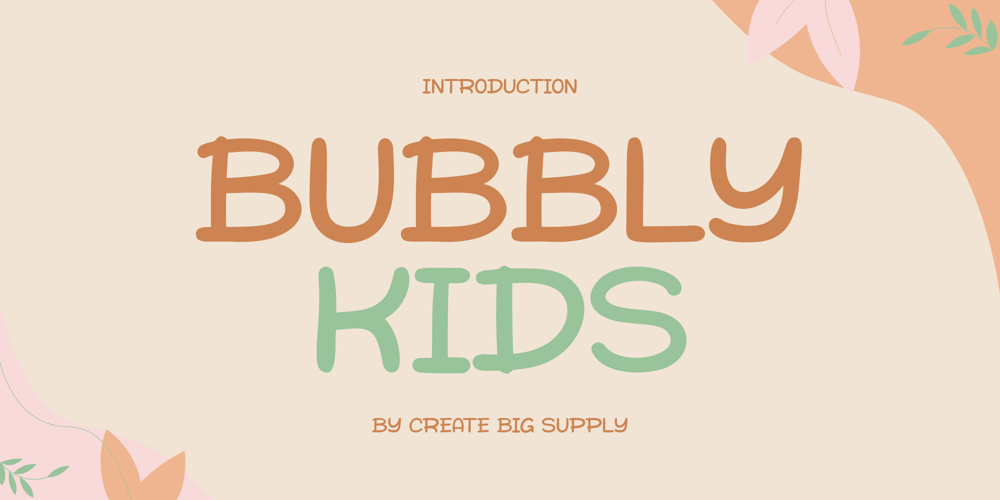
Bubbly Kids
Bubbly Kids font
Bubbly Kids Font Family was designed by Irpan Maulana and published by Create Big Supply. Bubbly Kids contains 1 styles and family package options. Bubbly Kids Font is a cute and fun display font. This will add a cheerful, happy touch to your design. Features: Uppercase & lowercase Numbers and punctuation Multilingual PUA Encoding Full Character Set!”#$%&()*+,-./0123456789:;<=>?@ABCDEFGHIJKLMNOPQRSTUVWXYZ[]^_abcdefghijklmnopqrstuvwxyz{|}~ ¡¢£¤¥§©ª«­®°±²³¹º»¿ÀÂÃÄÅÆÇÈÉÊËÌÍÎÏÑÒÓÔÕÖרÙÛÜÝÞßàáâãäåæçèéêëìíîïñòóôõö÷øùúûüýþÿıŒœŠšŸž–—‘’“”†‹›€−…·•/‚„